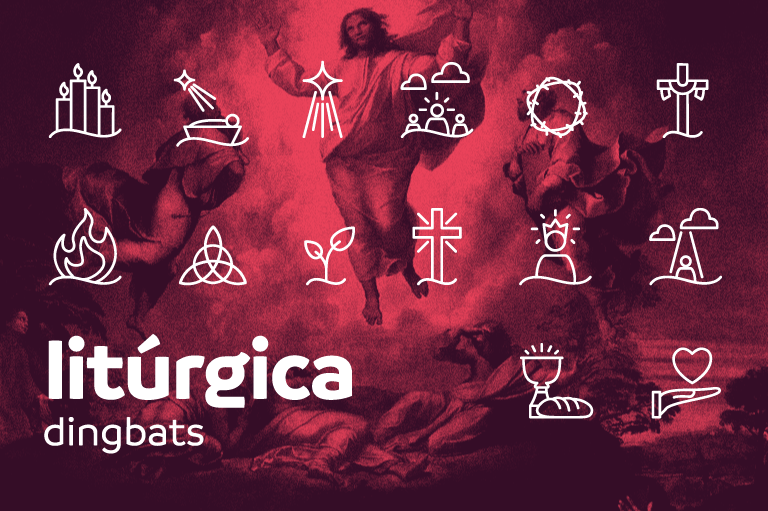
Font name: | Liturgica |
Categories | Dingbats, Esoteric |
Author: | Kaiky Fernandez |
Lit�rgica � uma fonte de dingbats baseada no calend�rio lit�rgico crist�o e na rotina da igreja. _ Lit�rgica is a dingbats font based on the Christian Liturgical Calendar and the church routine. _ http://be.net/kaikyfernandez |